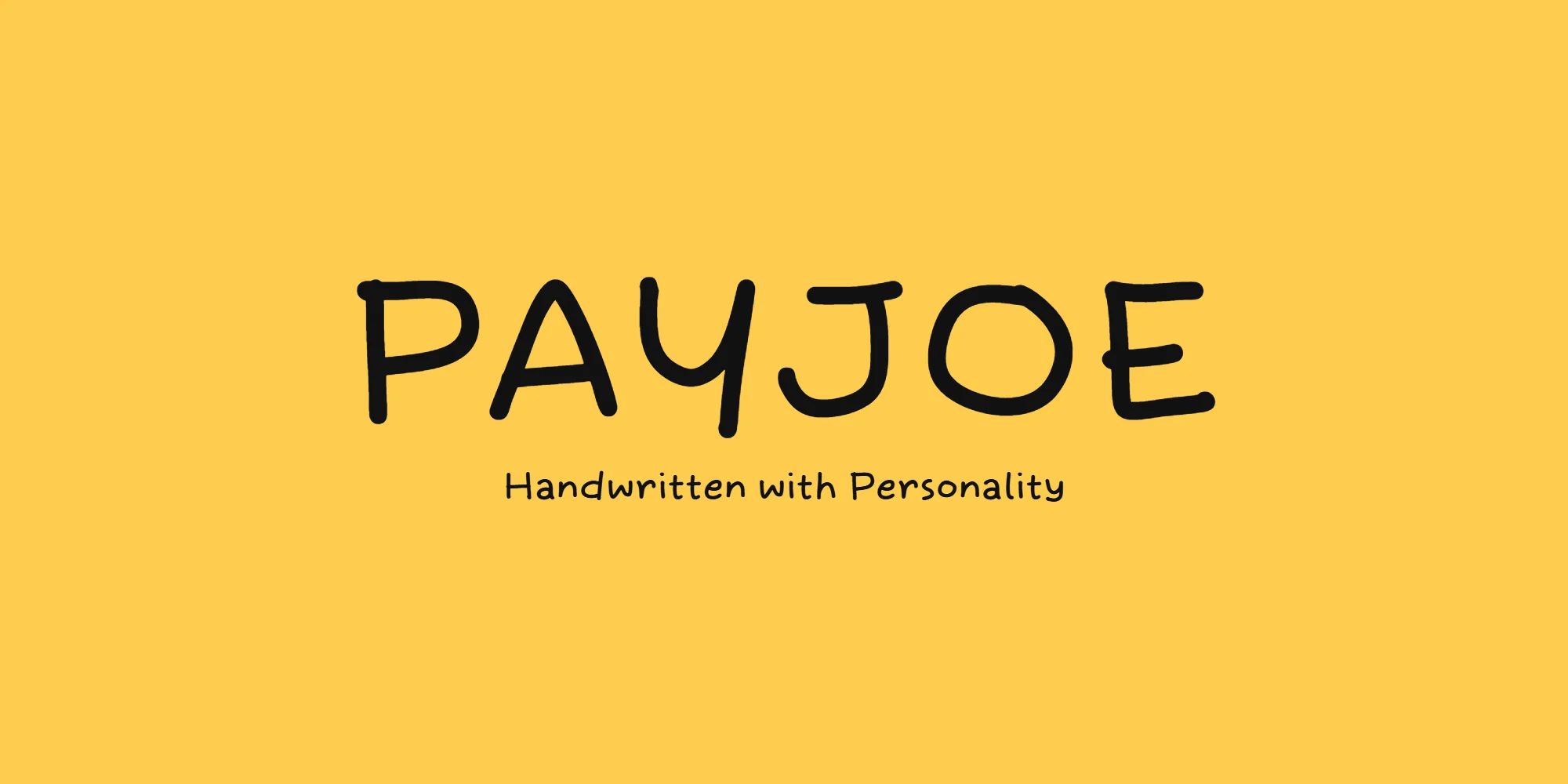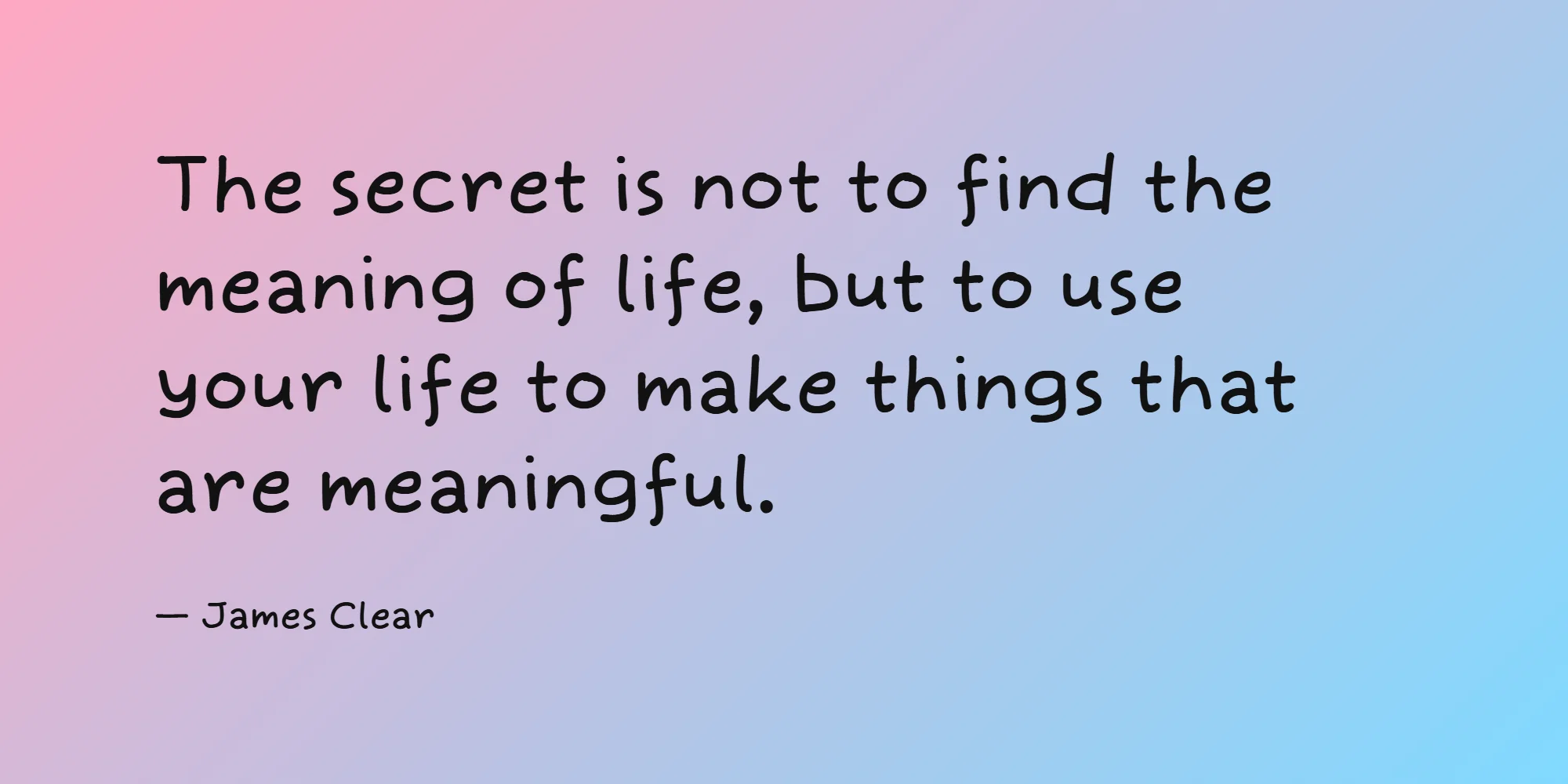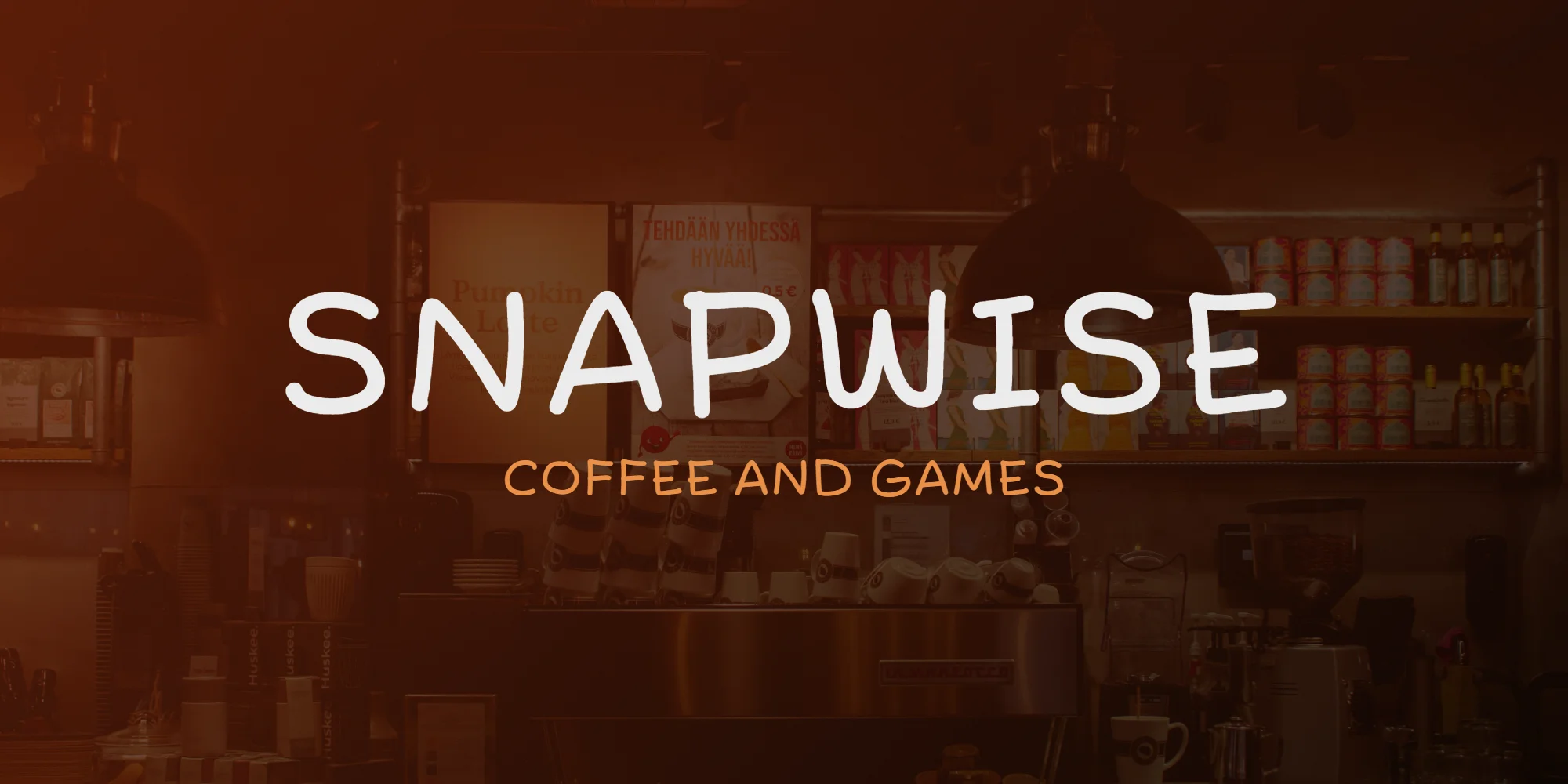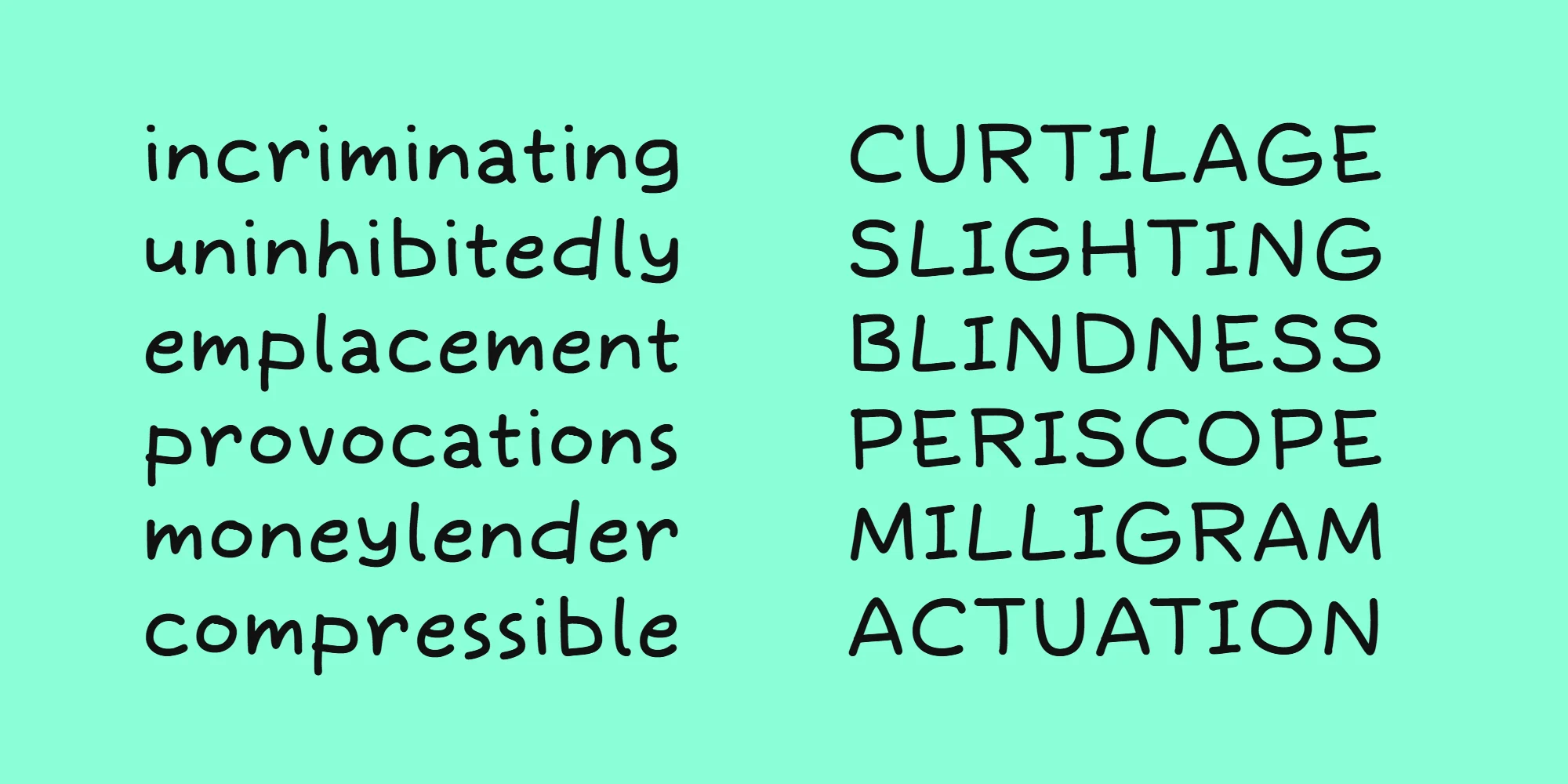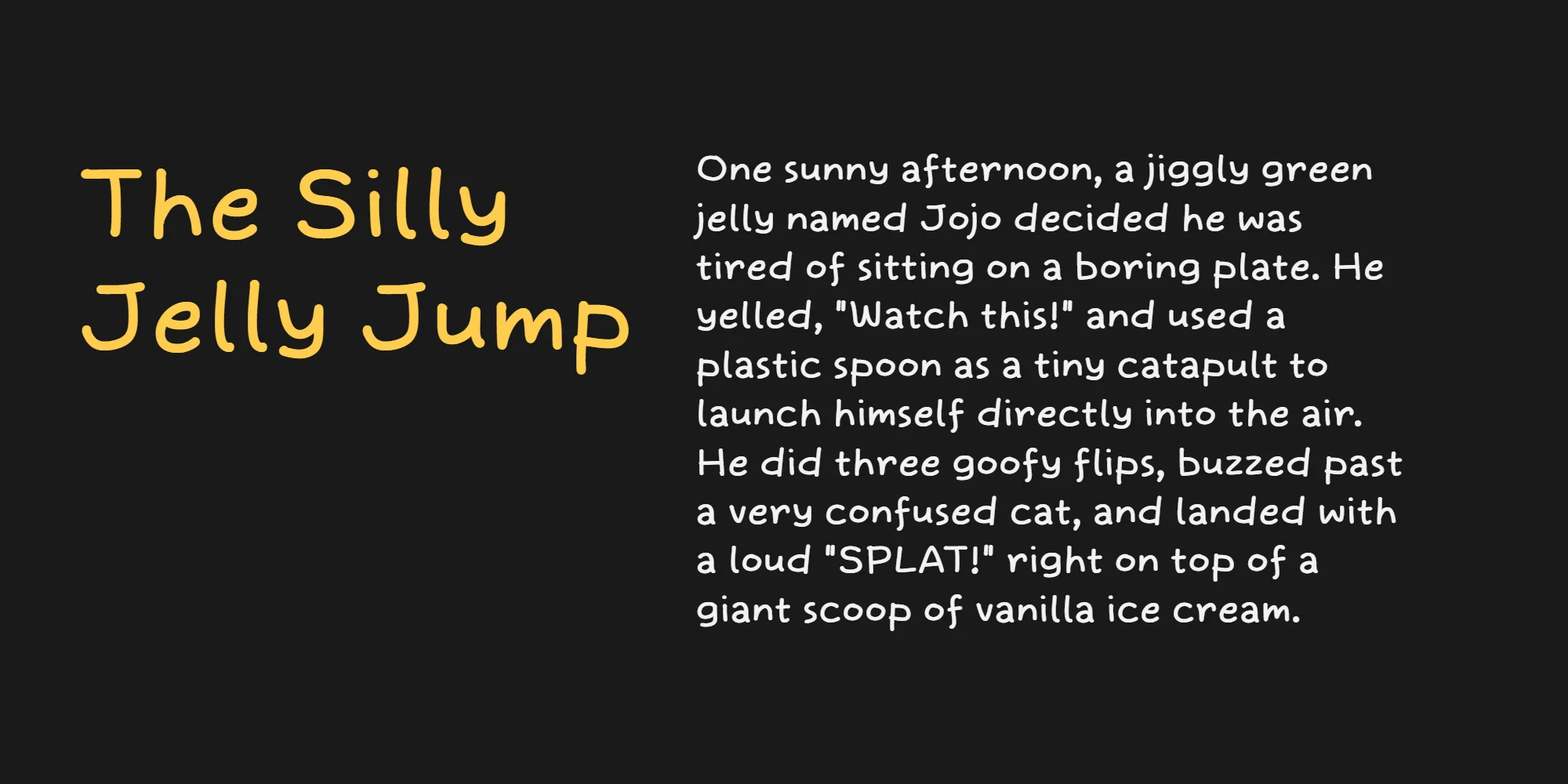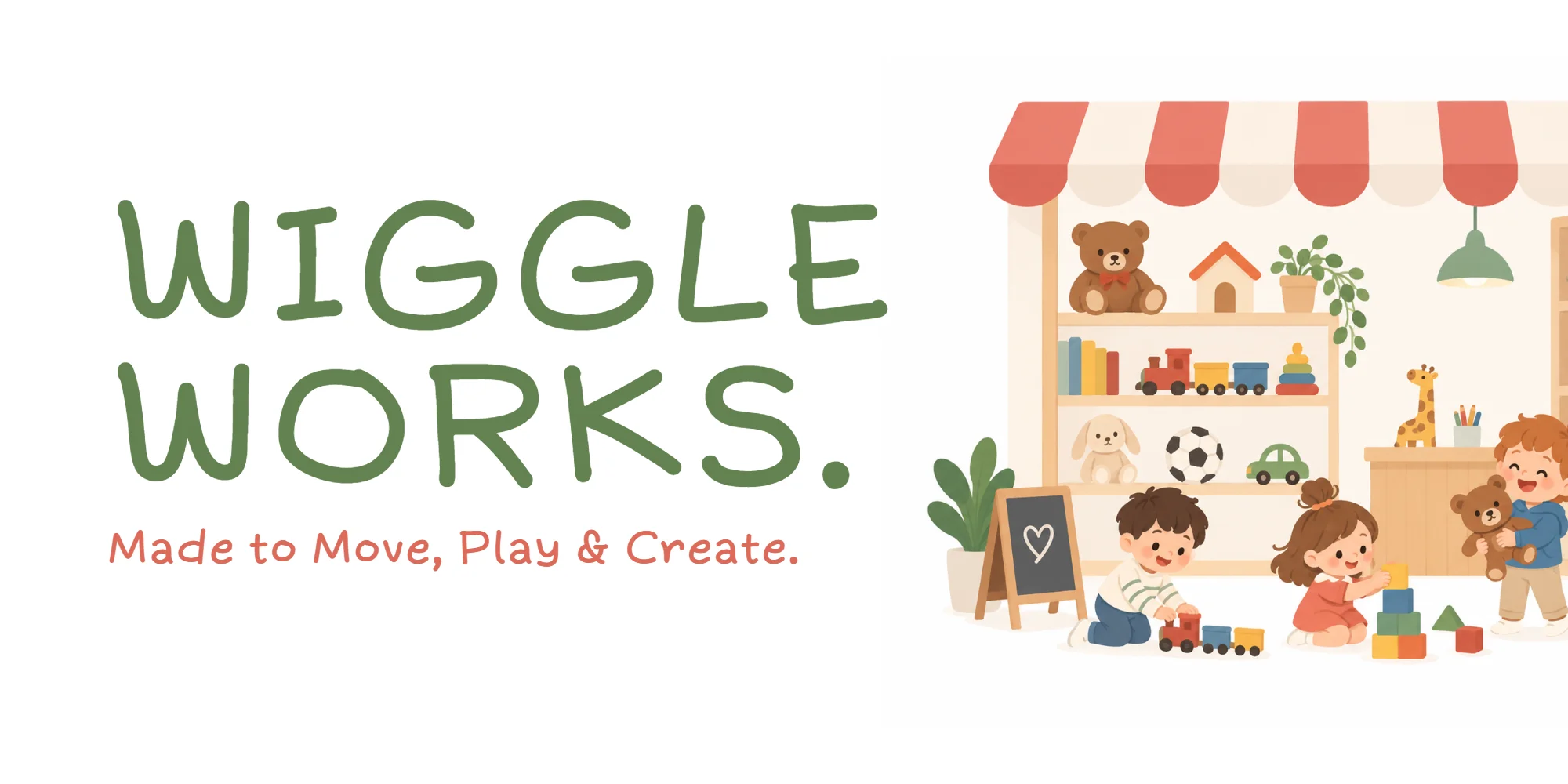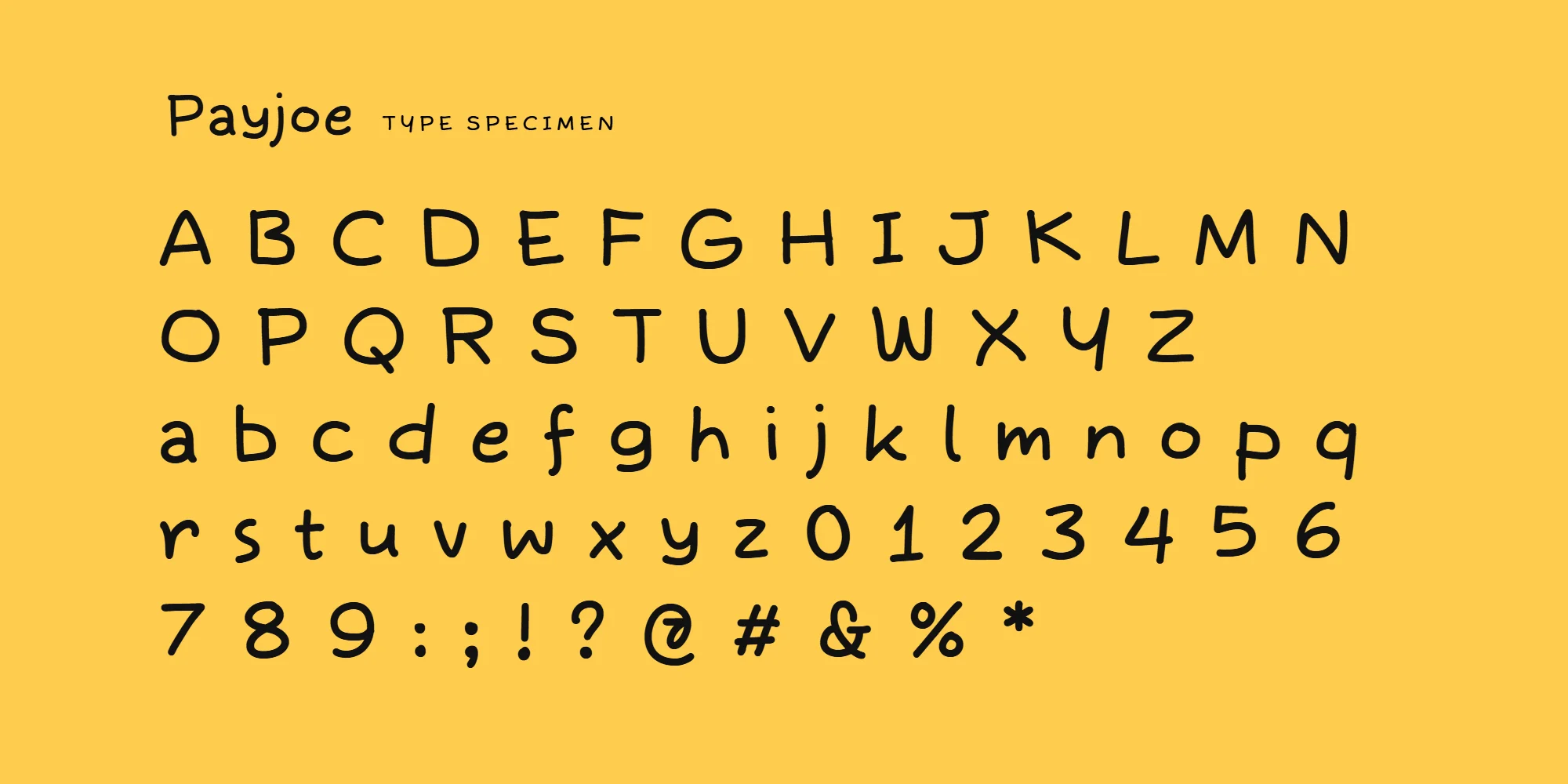
Payjoe is a casual handwritten font designed to bring a more personal and human touch to your designs. With its natural handwritten look and relaxed character, Payjoe feels friendly, approachable, and effortlessly casual.
It works great when you want your design to feel less formal and more personal. Use it for simple posters, social media graphics, subtitles, quotes, greeting cards, stickers, packaging, invitations, personal branding, thumbnails, short-form content, or anywhere you want to add a handwritten feel.
Payjoe is also designed to stay readable while keeping its authentic handwritten personality, making it useful for both short phrases and longer lines of text.
Payjoe. Just a little handwriting to make your design feel more human.